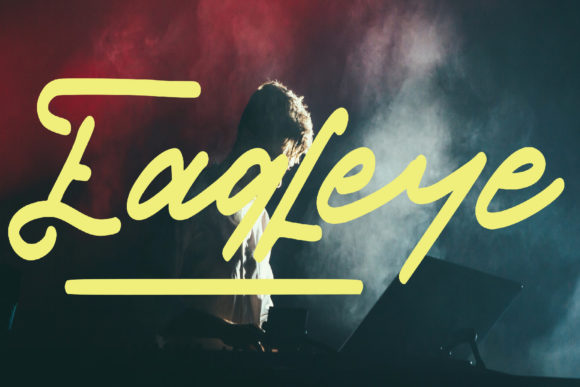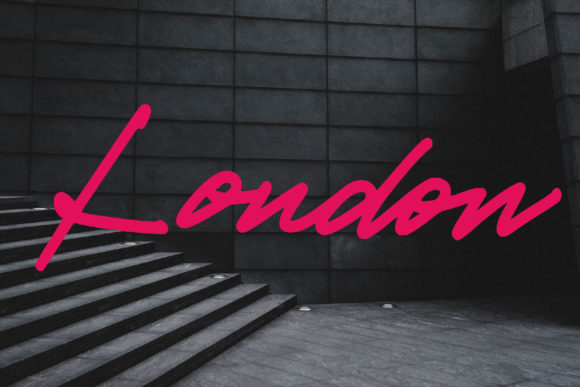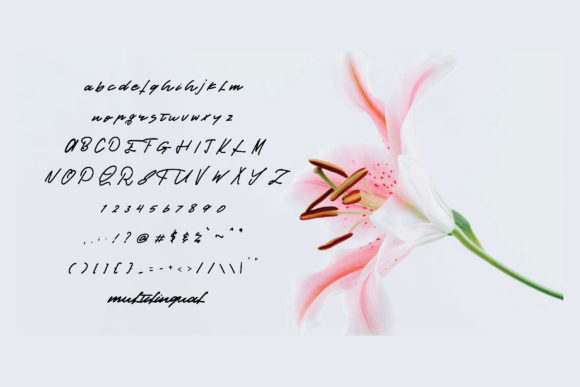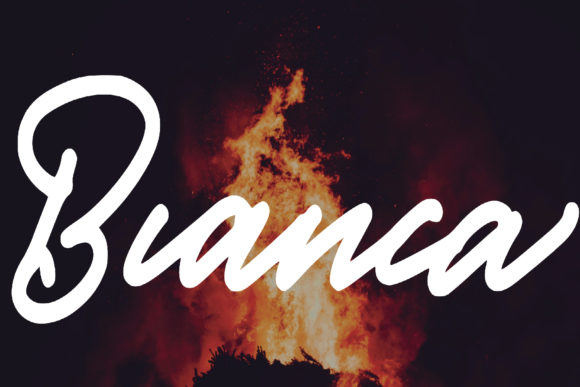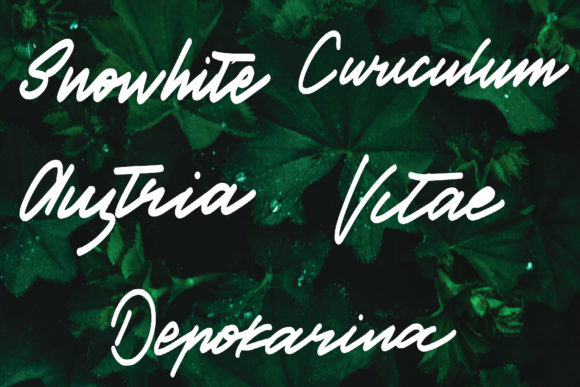
Introduction to Cinestory Font
Cinestory is an unique and exquisite handwritten font.
Fall in love with its incredibly versatile style and use it to create gorgeous wedding invitations, beautiful stationary art, eye-catching social media posts, and much more .
Key Features of Cinestory Font